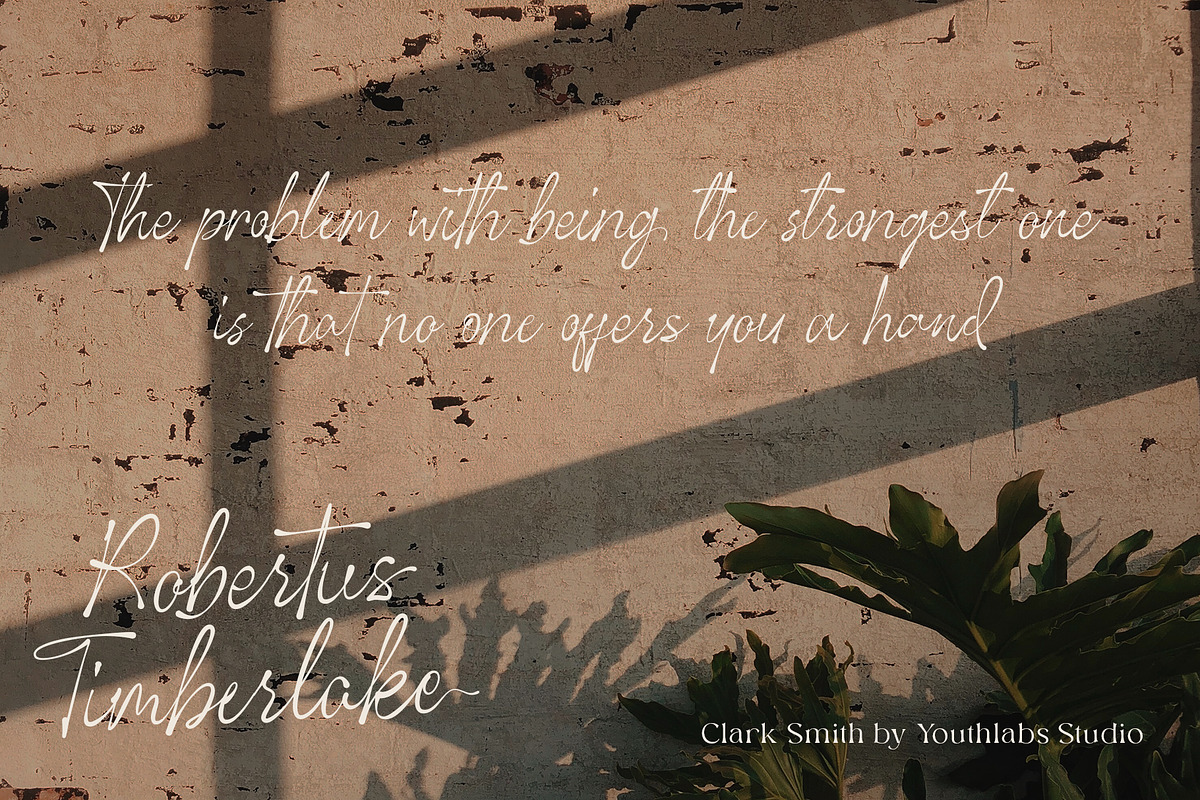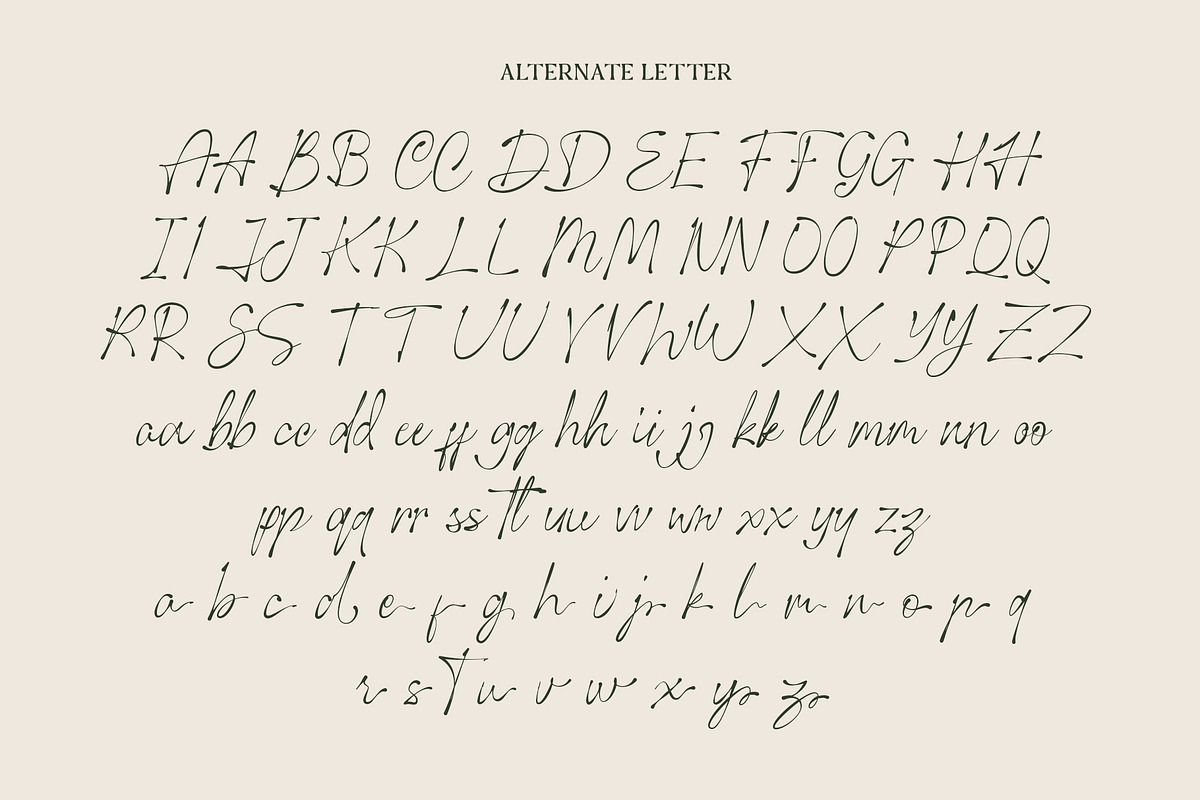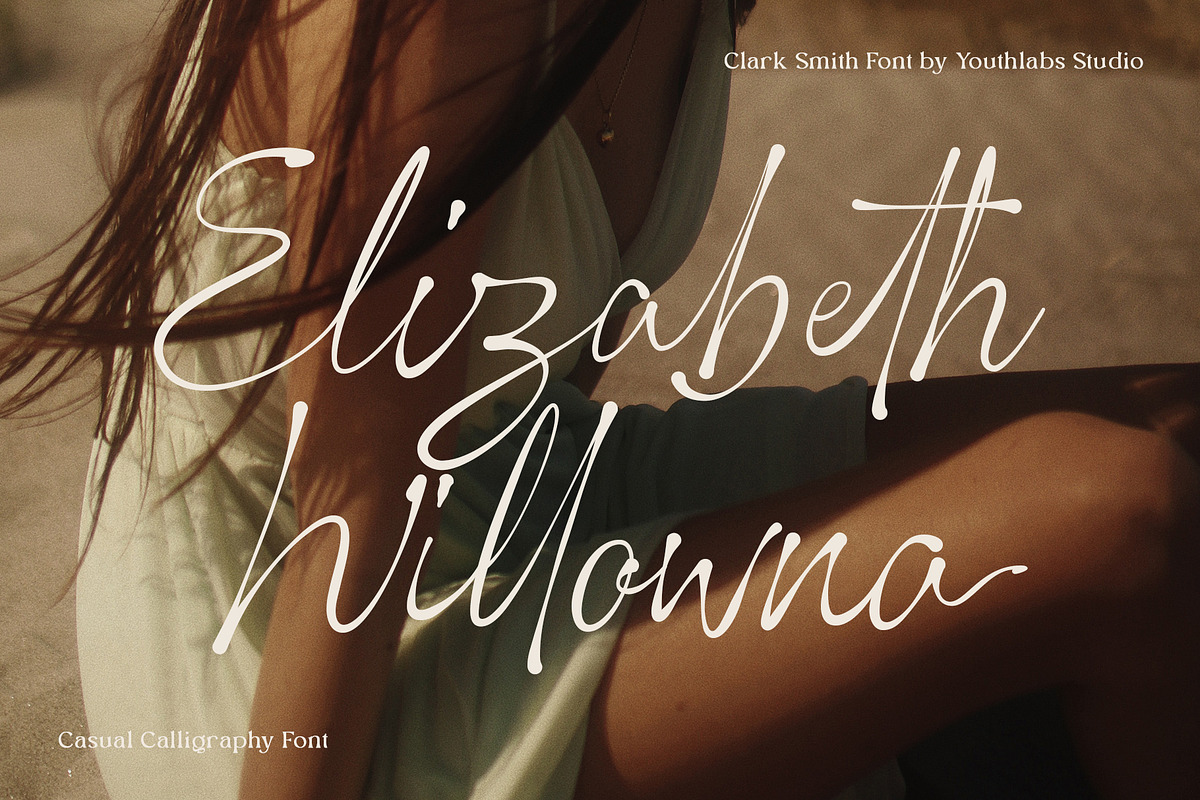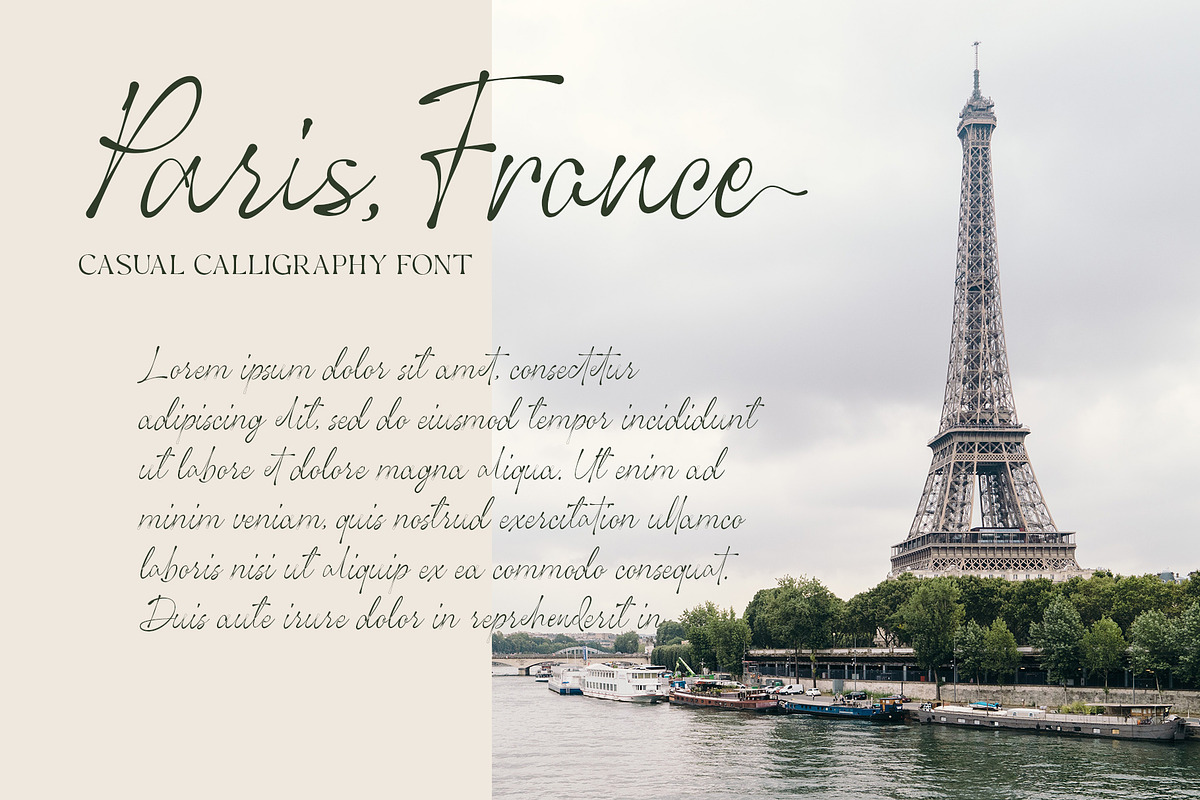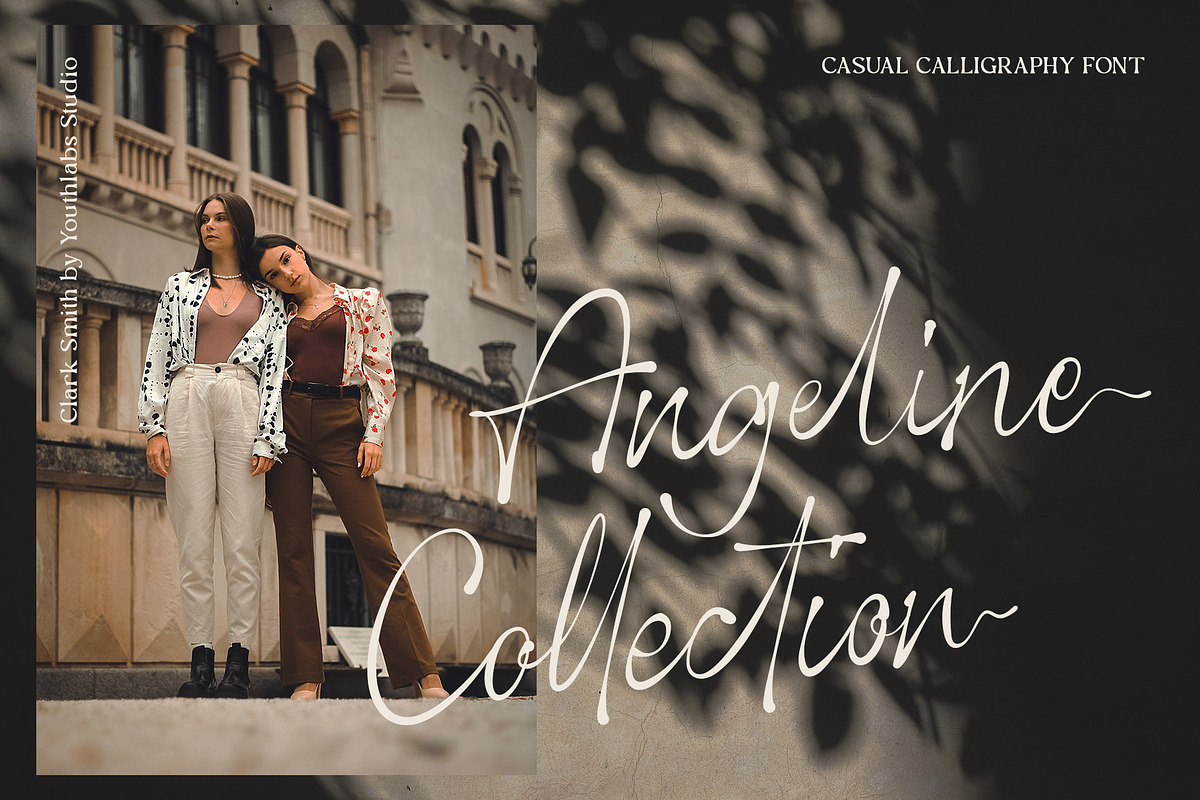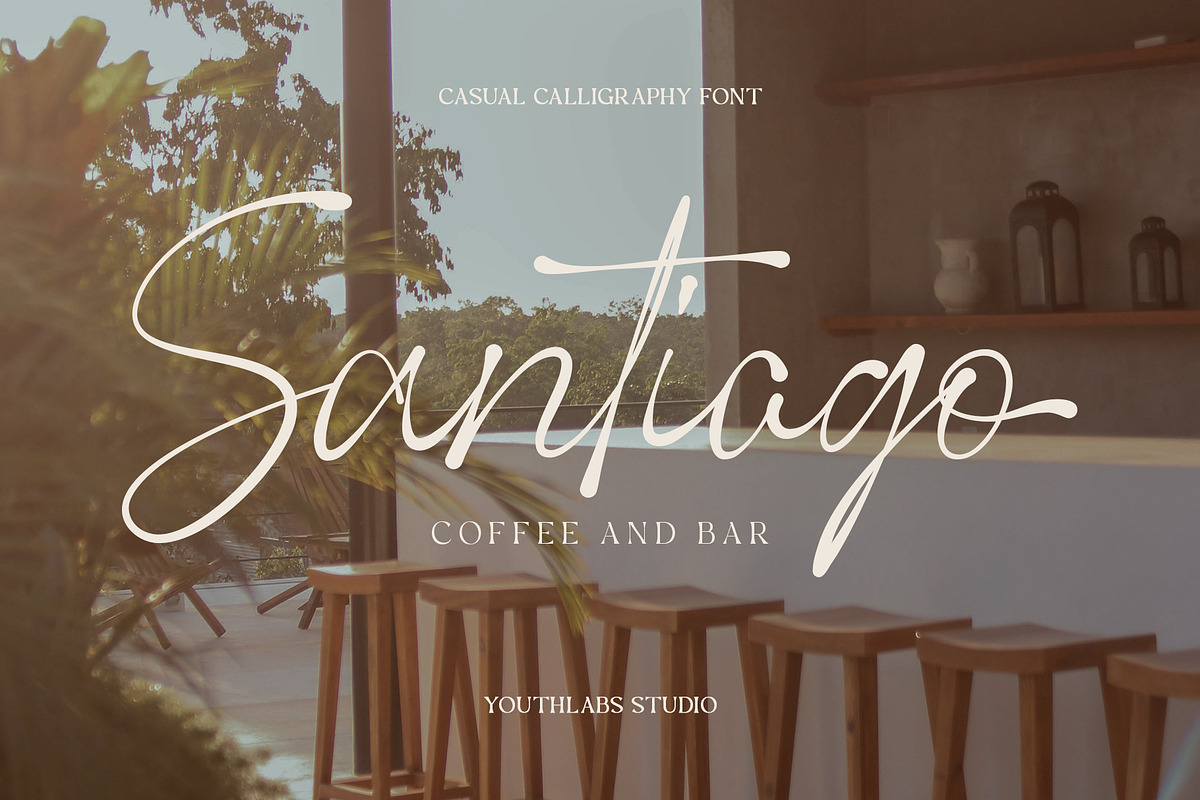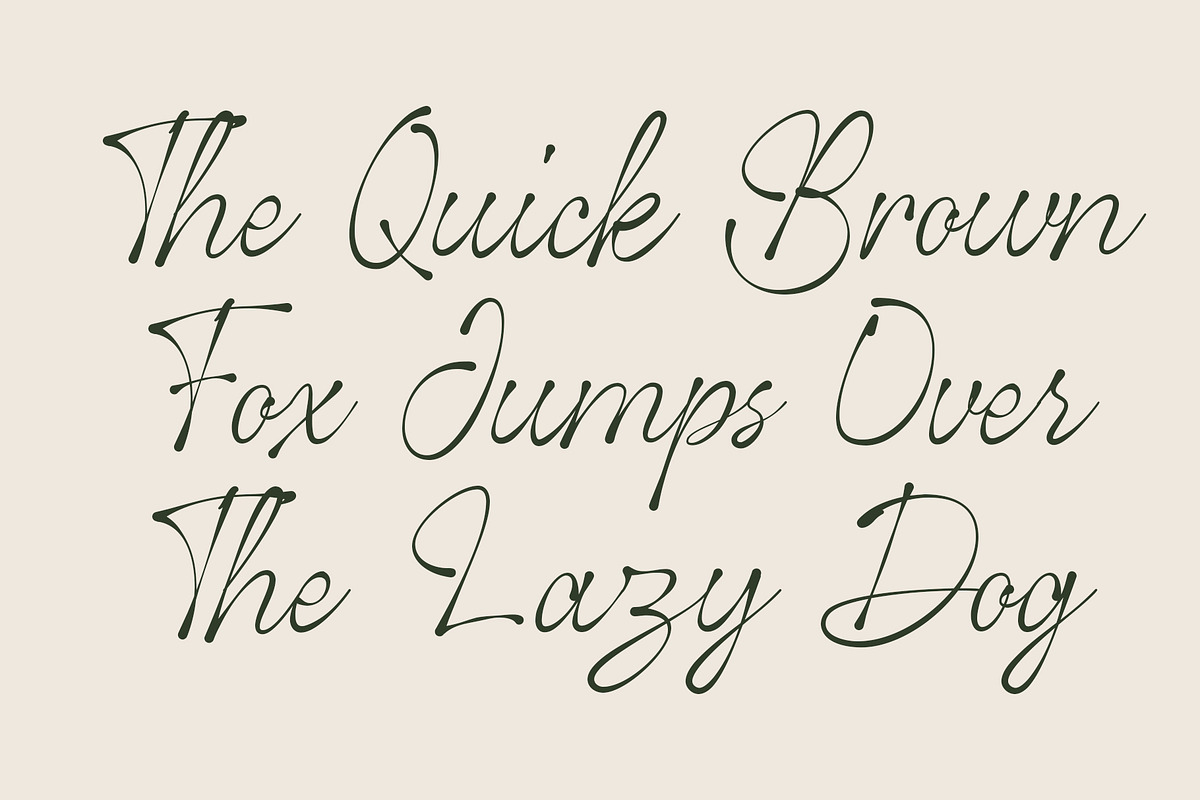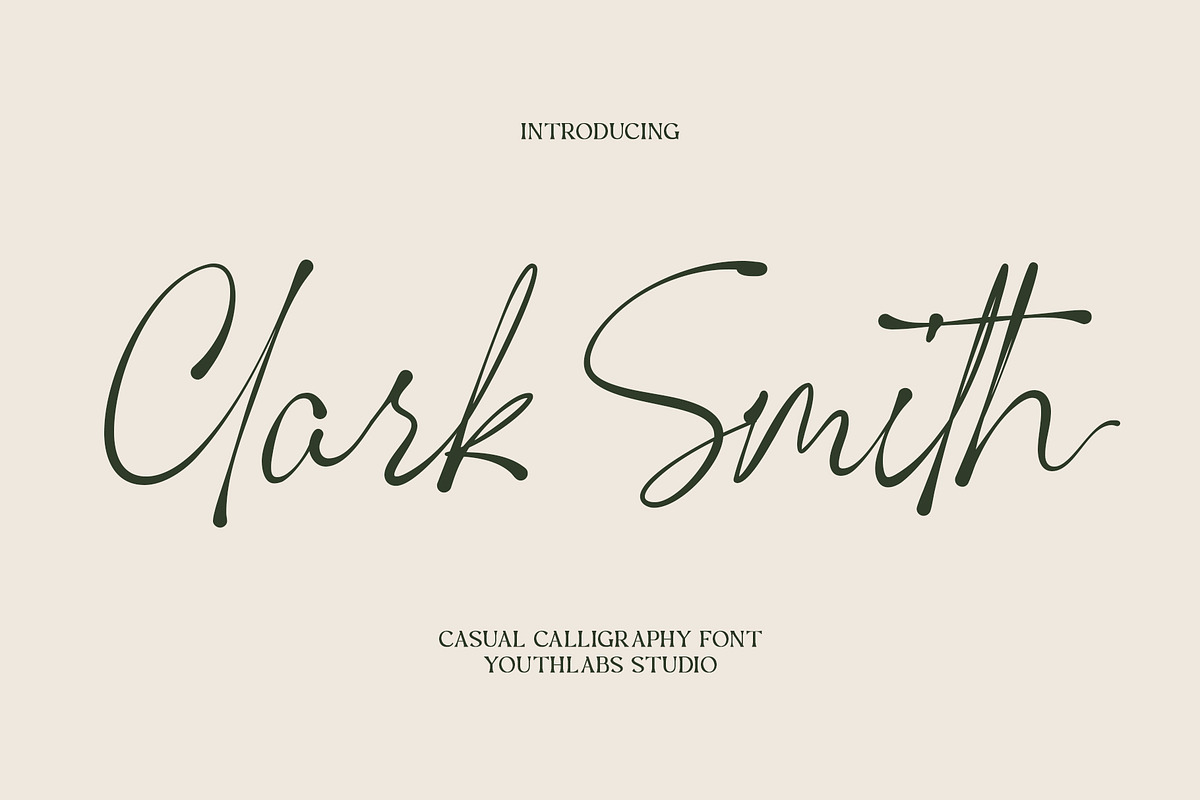
Clark Smith - Casual Calligraphy
Introducing Clark Smith Casual Calligraphy Font. Clark Smith is a Dynamic shape calligraphy that gives Casual touch with elegant shape on your design. It looks so good for fashion brand logo. With different style of shape and thickness line, Clark Smith will make it easier for you to use various design functions, be it for logos, typography, magazine, fashion, branding, advertising, and more.